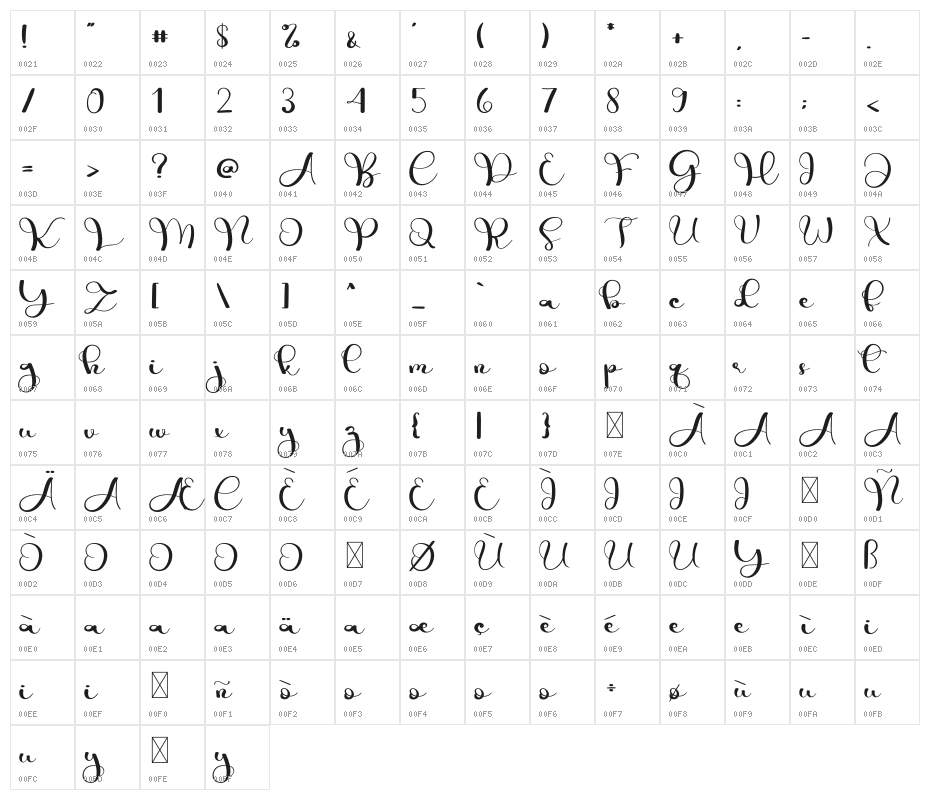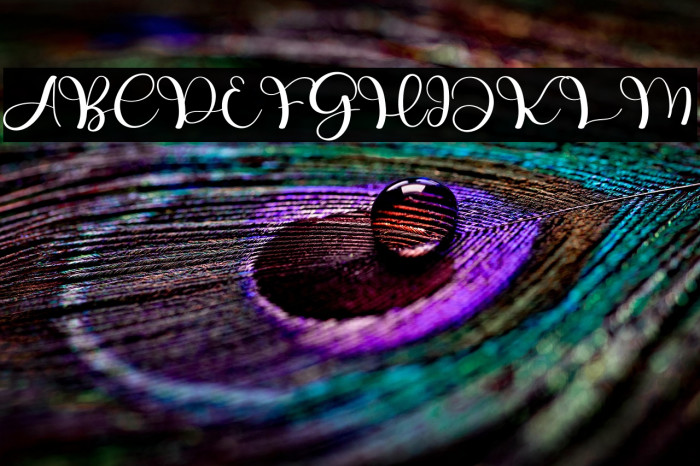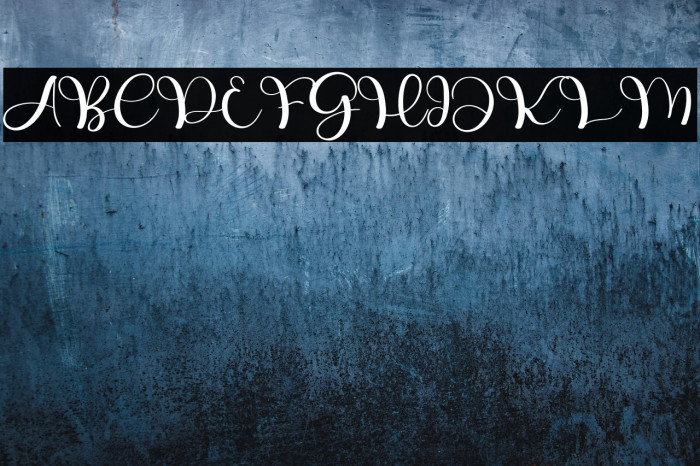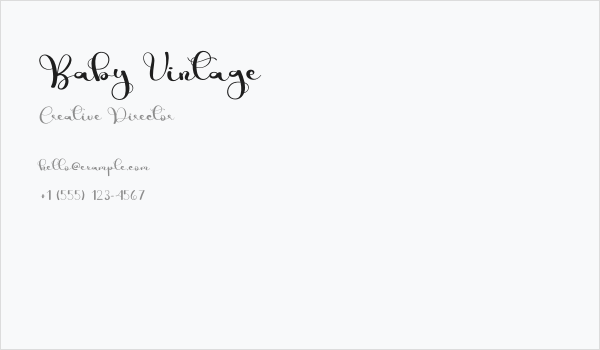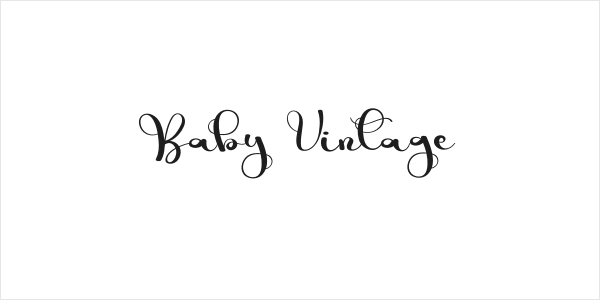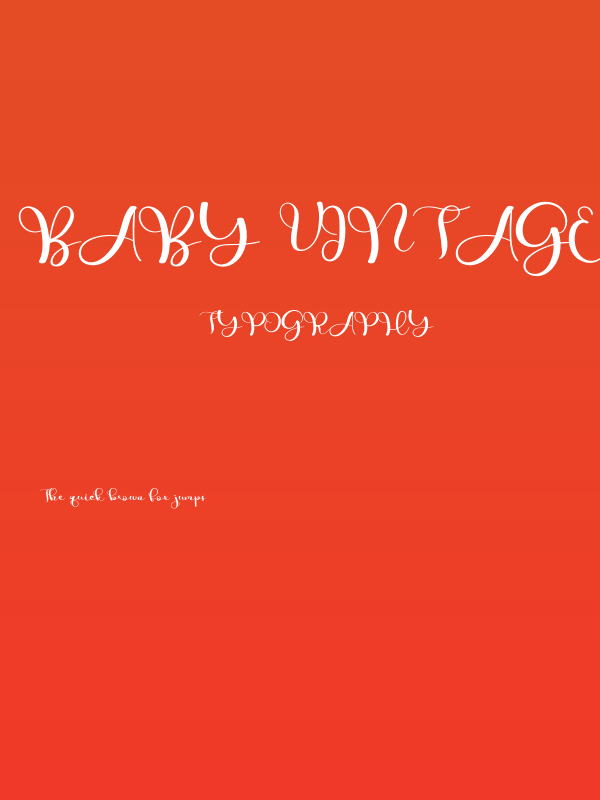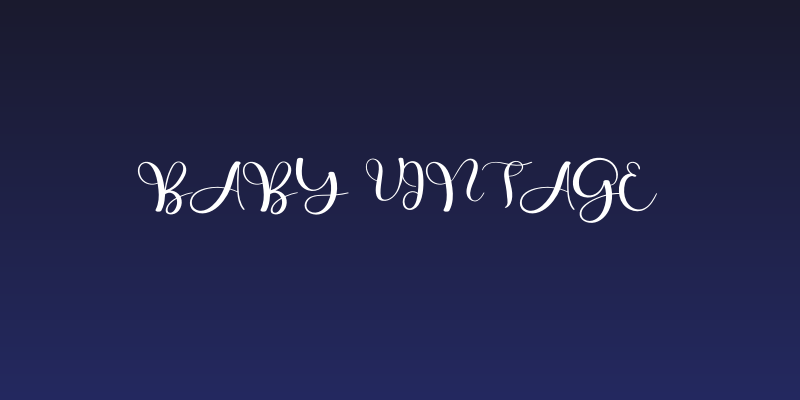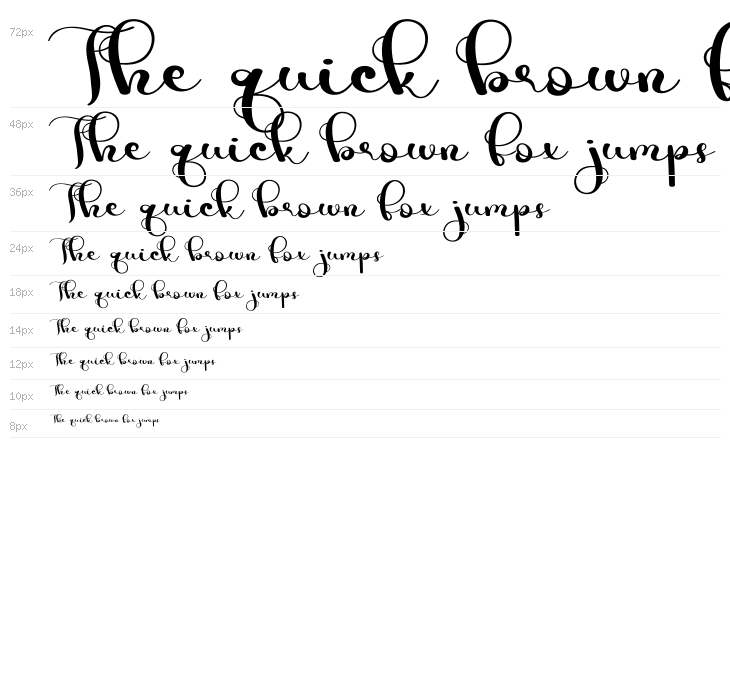
Baby Vintage Font
Baby Vintage Description
This font features a playful and elegant script style with a vintage flair. The uppercase letters are characterized by their flowing, interconnected loops and swirls, creating a sense of movement and grace. The lowercase letters maintain a similar style, with rounded forms and decorative flourishes that enhance their whimsical appearance. The numerals are bold and slightly slanted, adding to the overall dynamic feel of the font. Special characters are creatively designed, maintaining the font's cohesive aesthetic. This font is perfect for projects that require a touch of elegance and nostalgia, such as wedding invitations, greeting cards, or branding for boutique businesses.
Overall StyleVintage
Use CaseHeadlines, Logos, Invitations
Proposed ProjectsWedding invitations, greeting cards, boutique branding, vintage-themed designs.